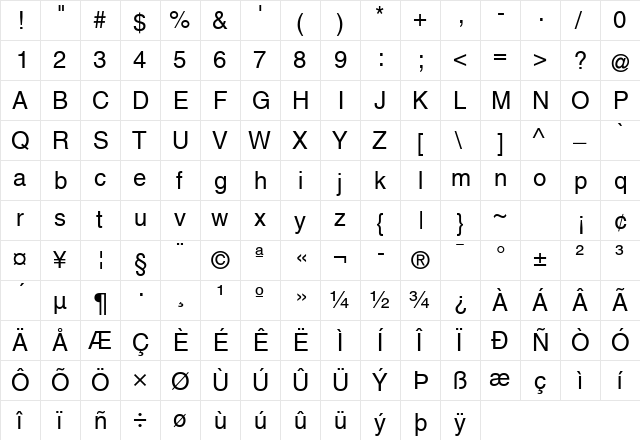
Helvetica World Regular
| Foundry | Linotype GmbH |
| Designer | Linotype Design Studio |
Design Context for Helvetica World Typeface
Helvetica World takes a measured approach to typography — its balanced proportions and neutral character make it a reliable workhorse for both digital and print work.
Pro Tip: Pair Helvetica World with a font of contrasting weight or personality to build a more expressive typographic hierarchy.